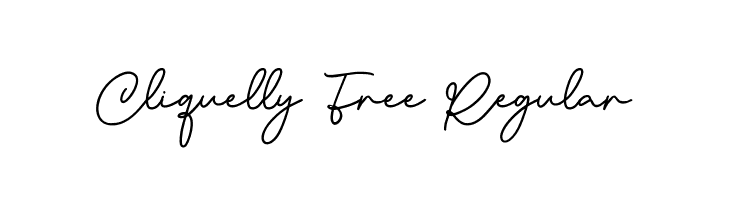
An elegant, flowing script font with a natural handwriting style.
A flowing, elegant script font with a handwritten style.
A playful and elegant font with unique elongated letters and a whimsical touch.
An elegant, flowing script font with connected characters and graceful curves.
A playful handwritten font with irregular strokes and a casual feel.
A bold, expressive handwritten font with fluid and dynamic strokes.
A dynamic, cursive script font with a flowing, handwritten style.